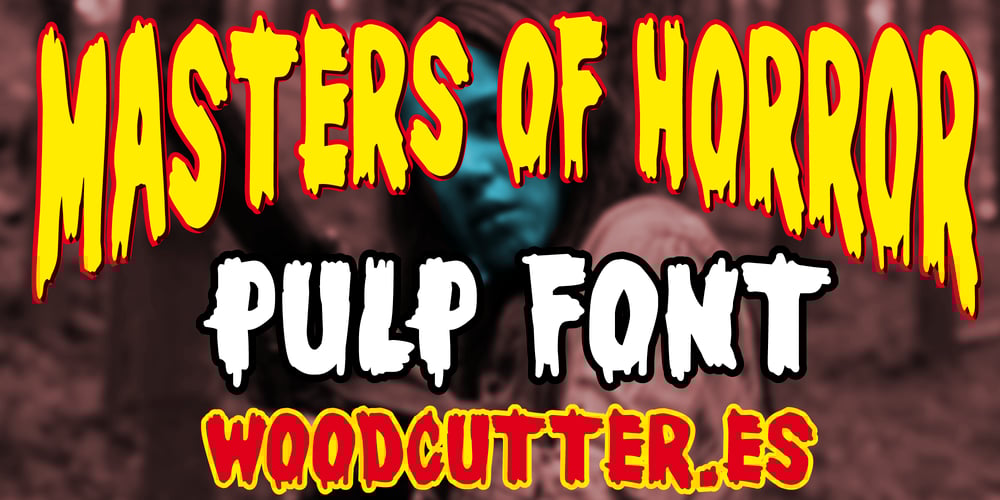
Masters of Horror
Masters of Horror font
Masters of Horror Font Family was designed by Jordi Manero and published by Woodcutter. Masters of Horror contains 1 styles and family package options. “Masters of Horror” is a vintage display font that captures the essence of old pulp horror magazines and classic B-movie horror films. With its worn and evocative aesthetic, this typeface takes you back to an era of macabre tales and iconic monsters. Its letters, with a distressed and eerie look, are perfect for projects seeking a retro and terrifying touch, ideal for movie titles, book covers, or any design needing a classic horror vibe.